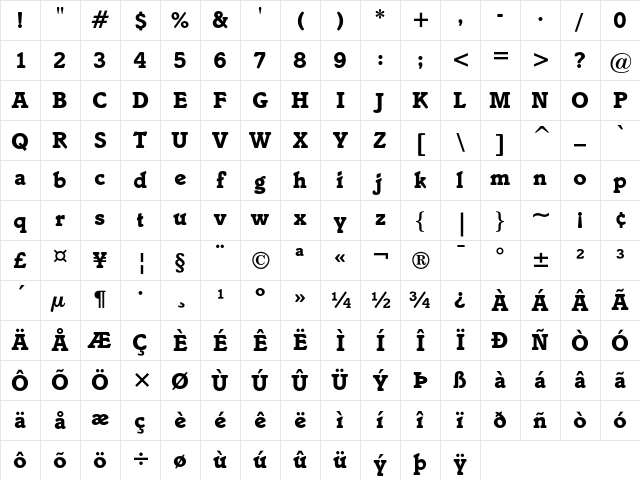
ITC Italia Bold Free Font
ITC Italia Bold
ITC Italia Family
Design Context for ITC Italia
ITC Italia is a composed and adaptable typeface that performs quietly and consistently across a wide range of design contexts. Its bold stroke weight gives it real presence on the page.
Pro Tip: Use ITC Italia in both headline and body roles to test its range before committing to a single application.